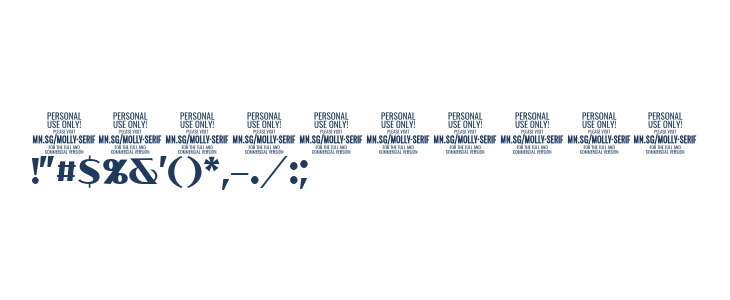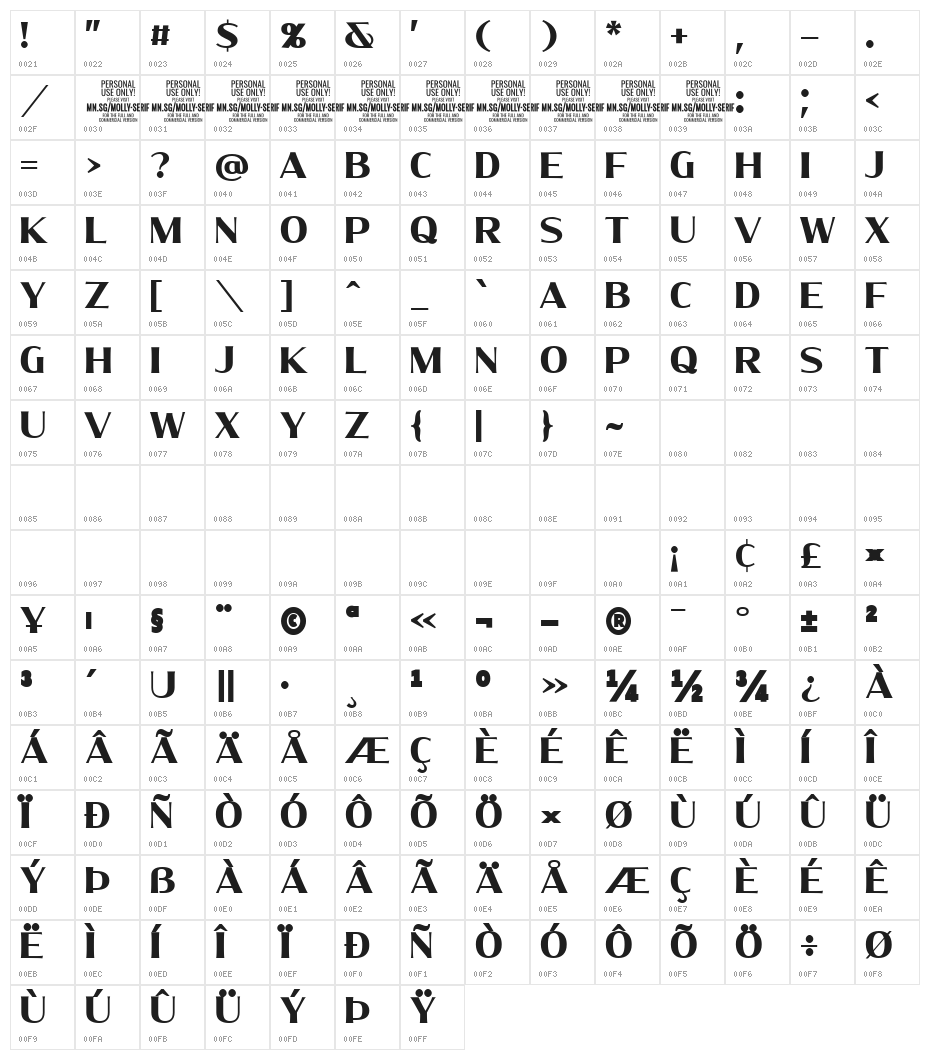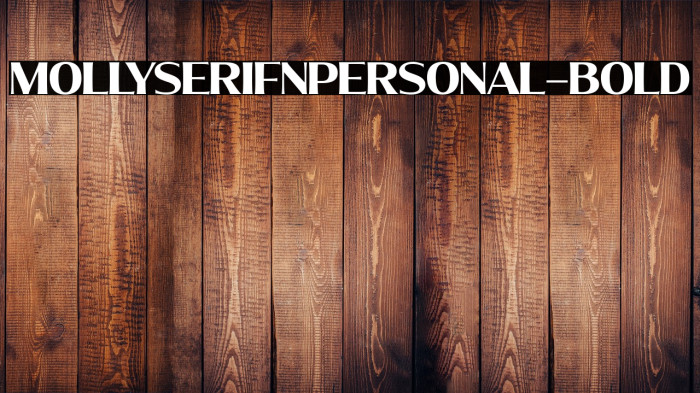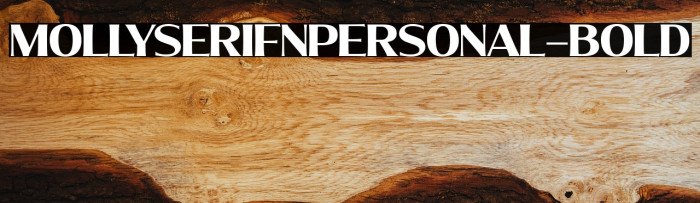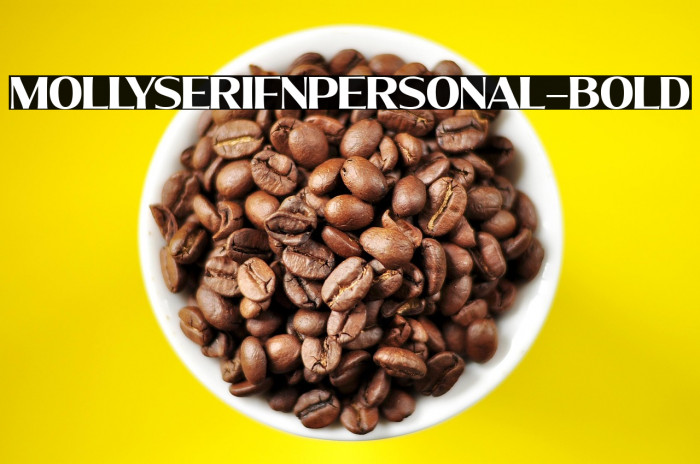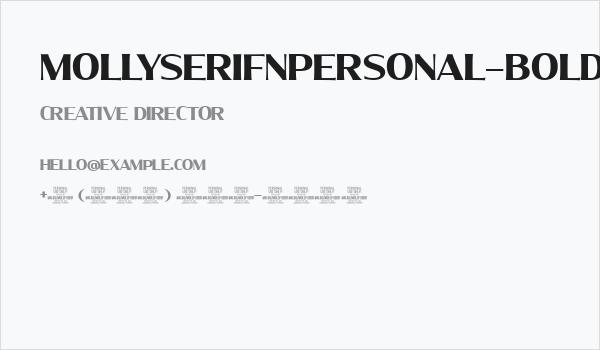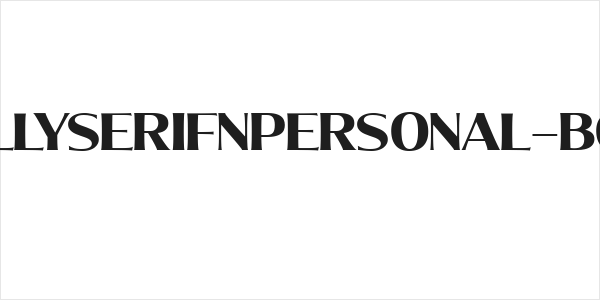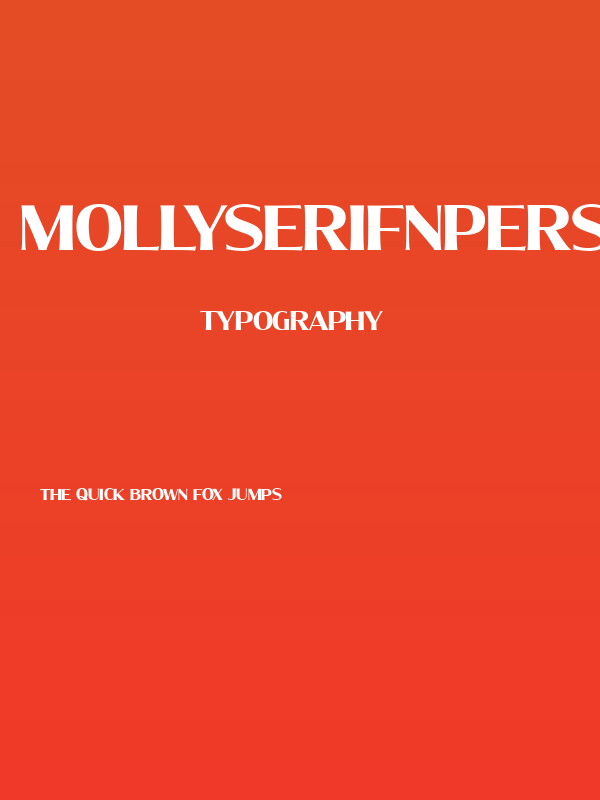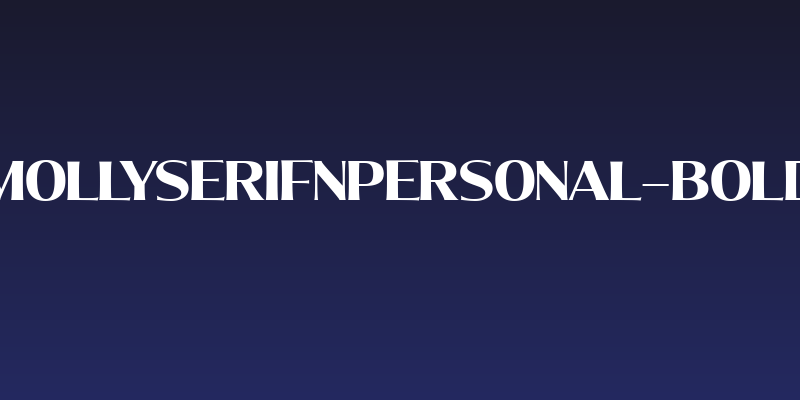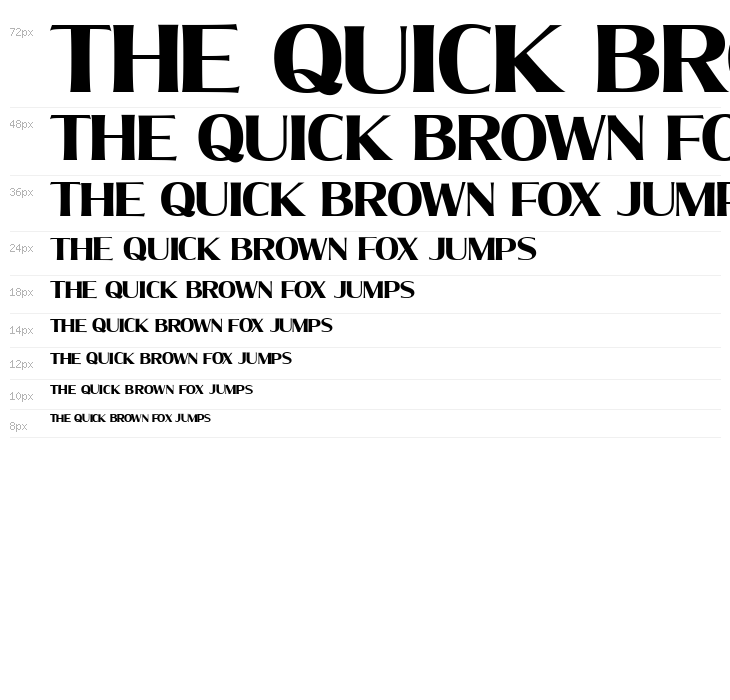
MollySerifNPERSONAL-Bold Font
MollySerifNPERSONAL-Bold Description
This font features a bold and striking serif style with a modern twist. The characters exhibit a unique blend of sharp angles and smooth curves, creating a dynamic and eye-catching appearance. The uppercase letters are particularly prominent, with a strong presence that commands attention. The lowercase letters maintain the same boldness, ensuring consistency across the typeface. The numerals and special characters are designed to complement the overall aesthetic, making them suitable for various design applications. The font's bold weight and high contrast between thick and thin strokes enhance its readability and visual impact.